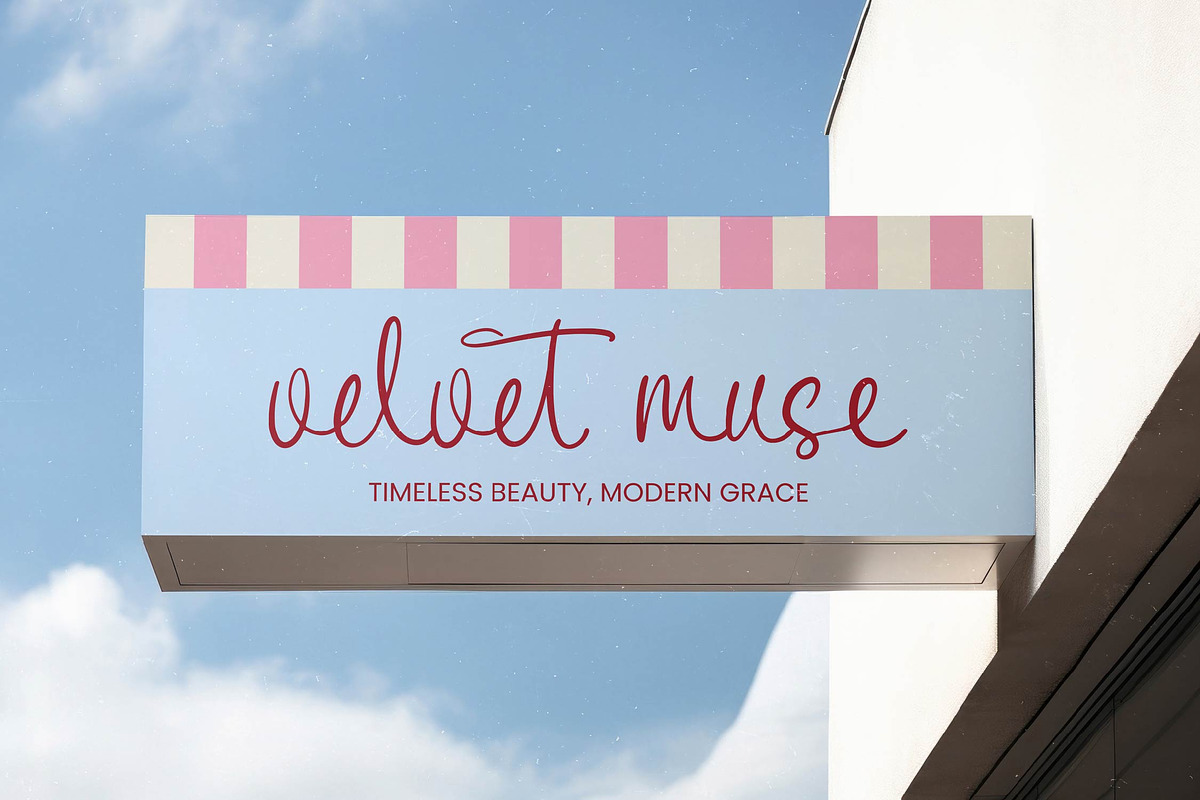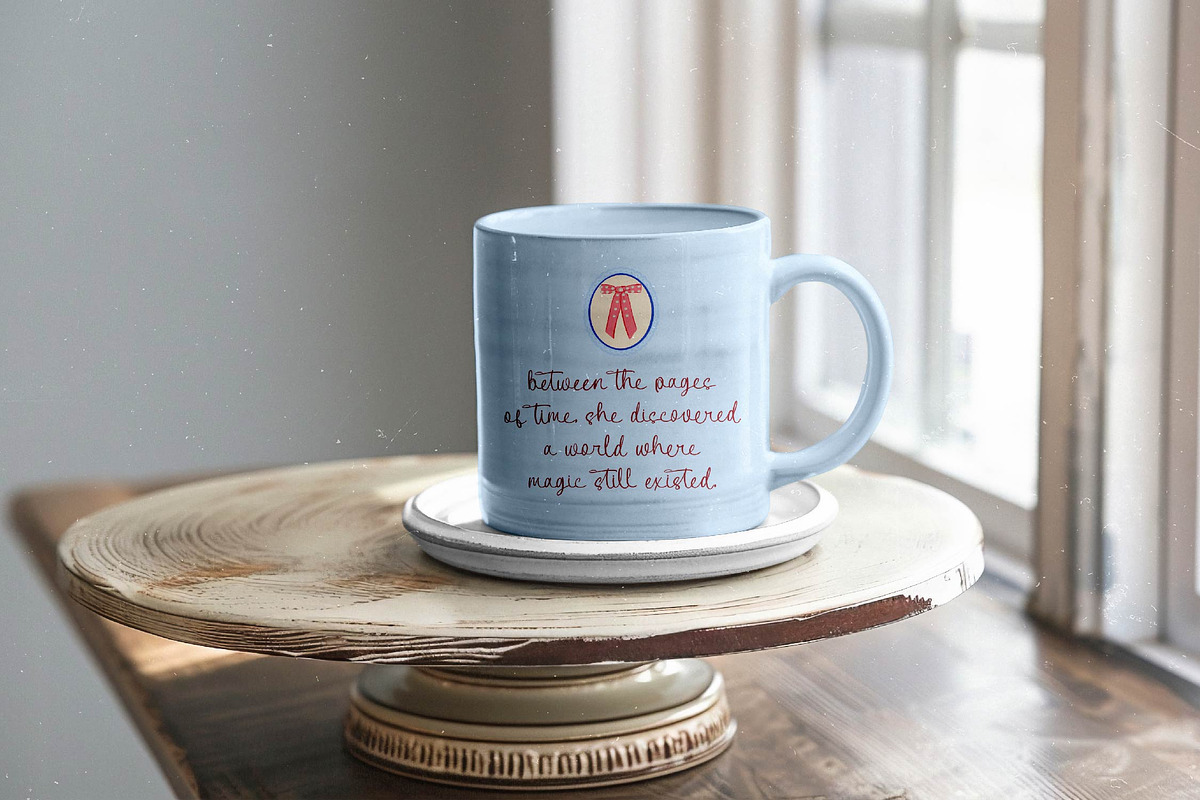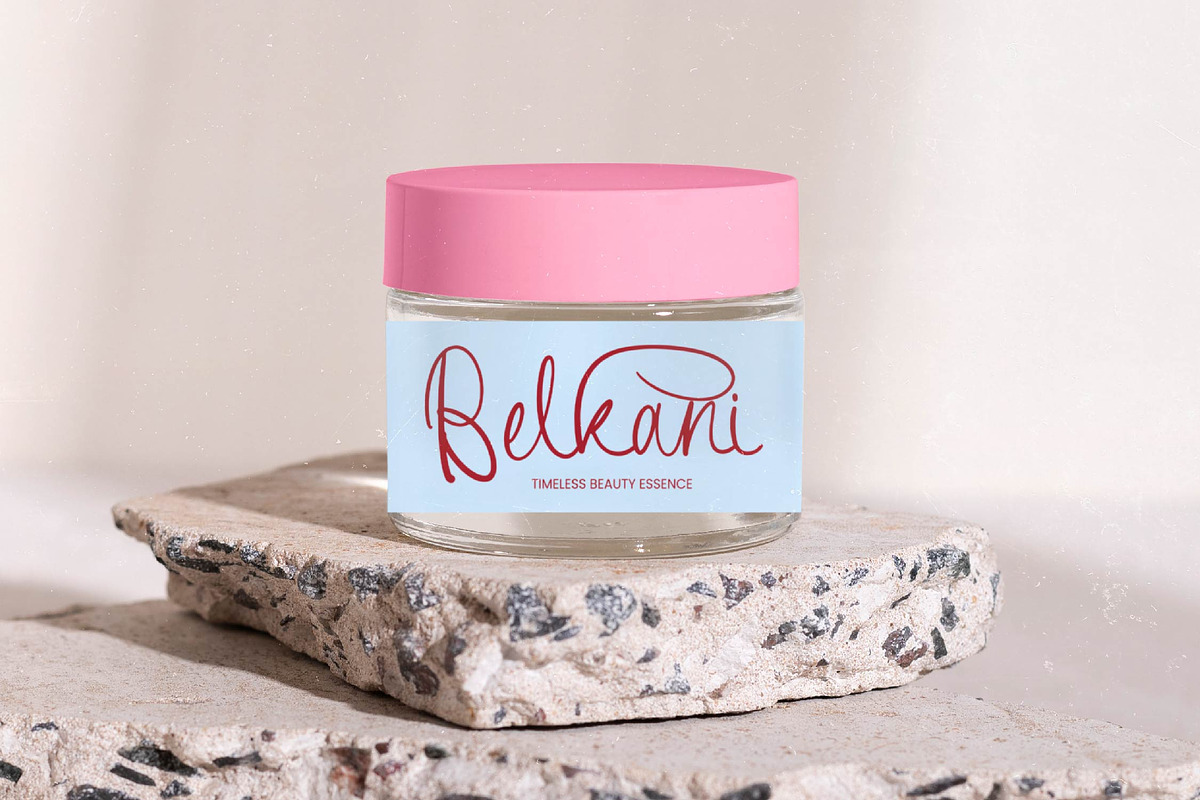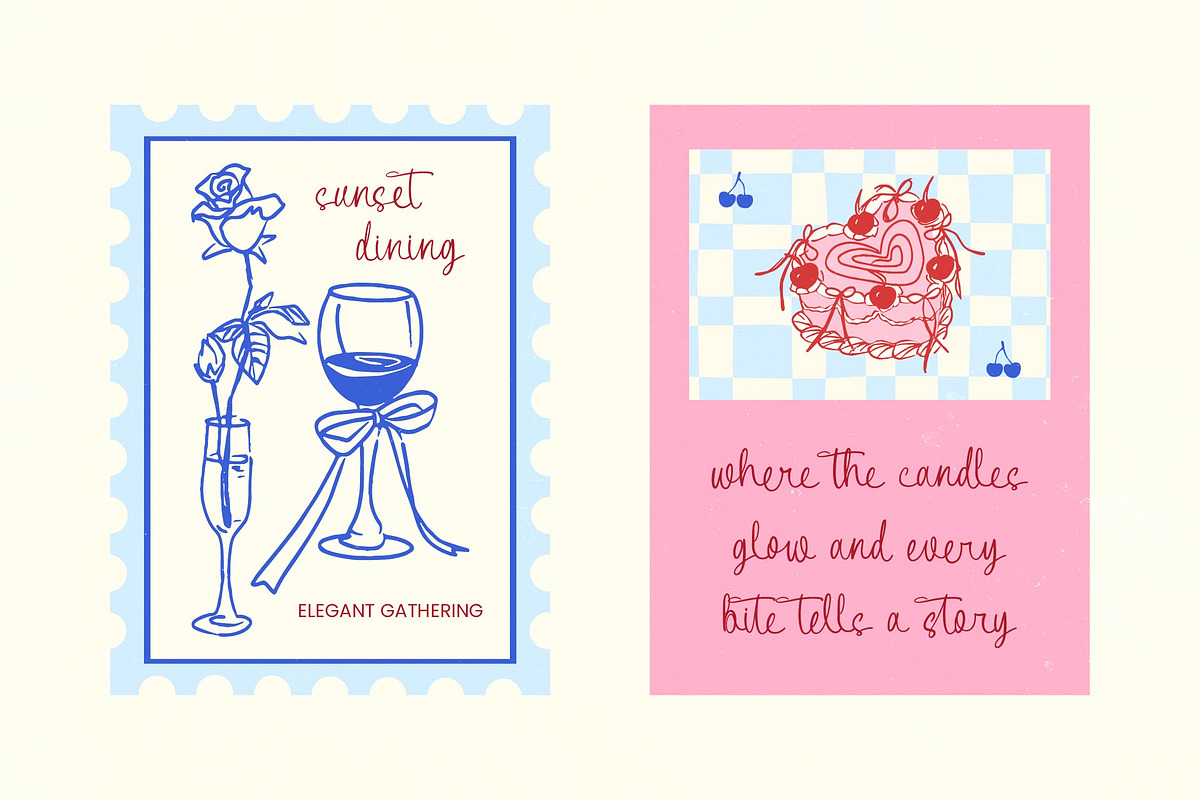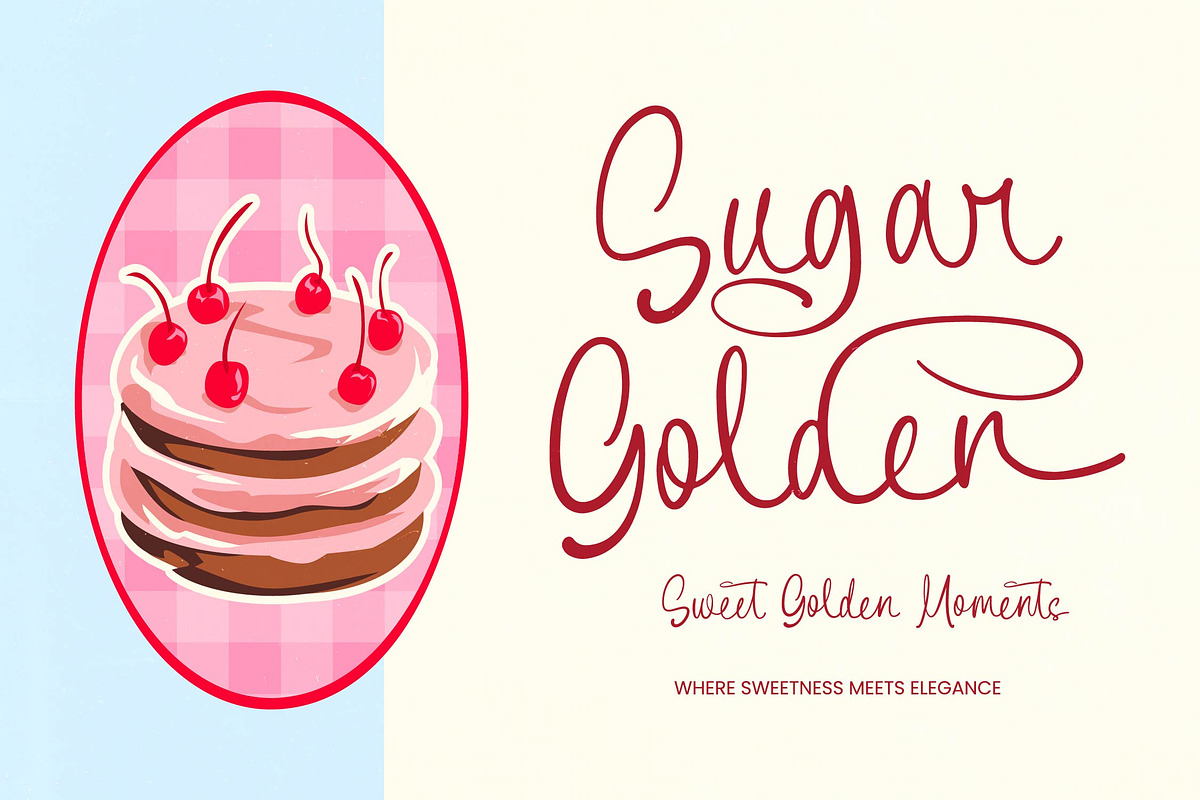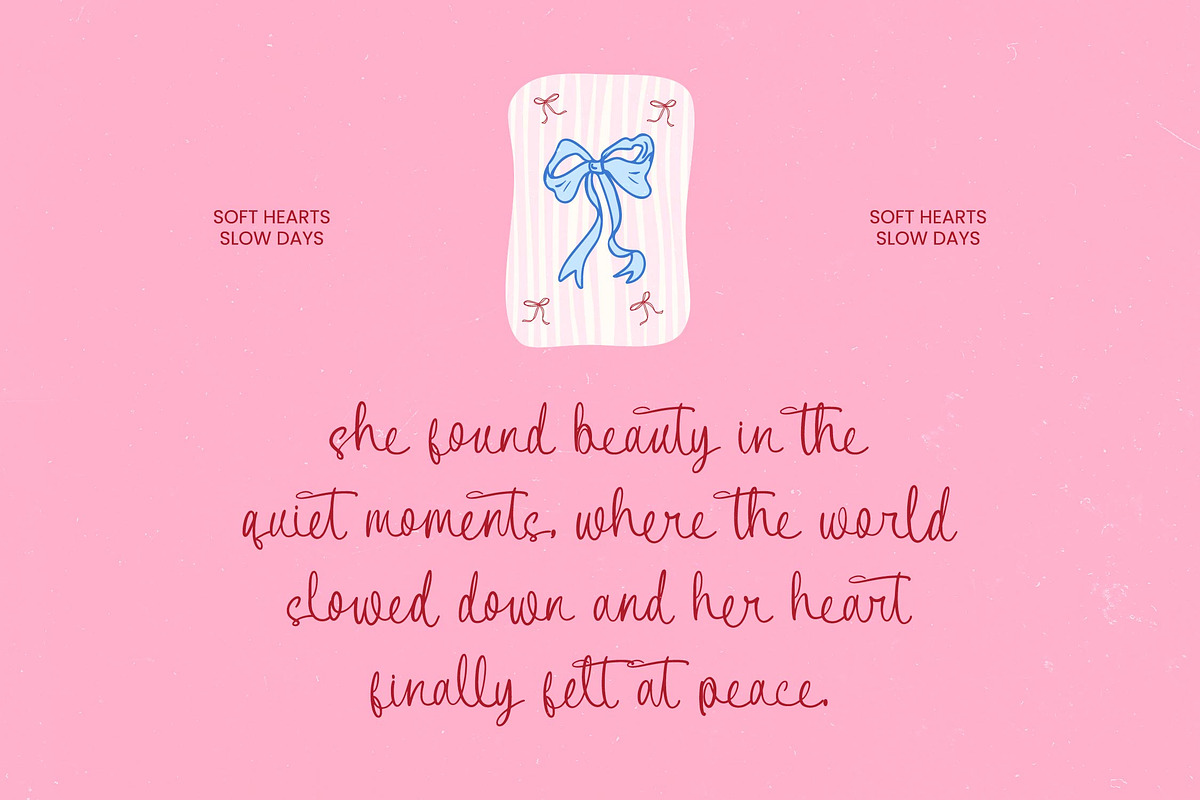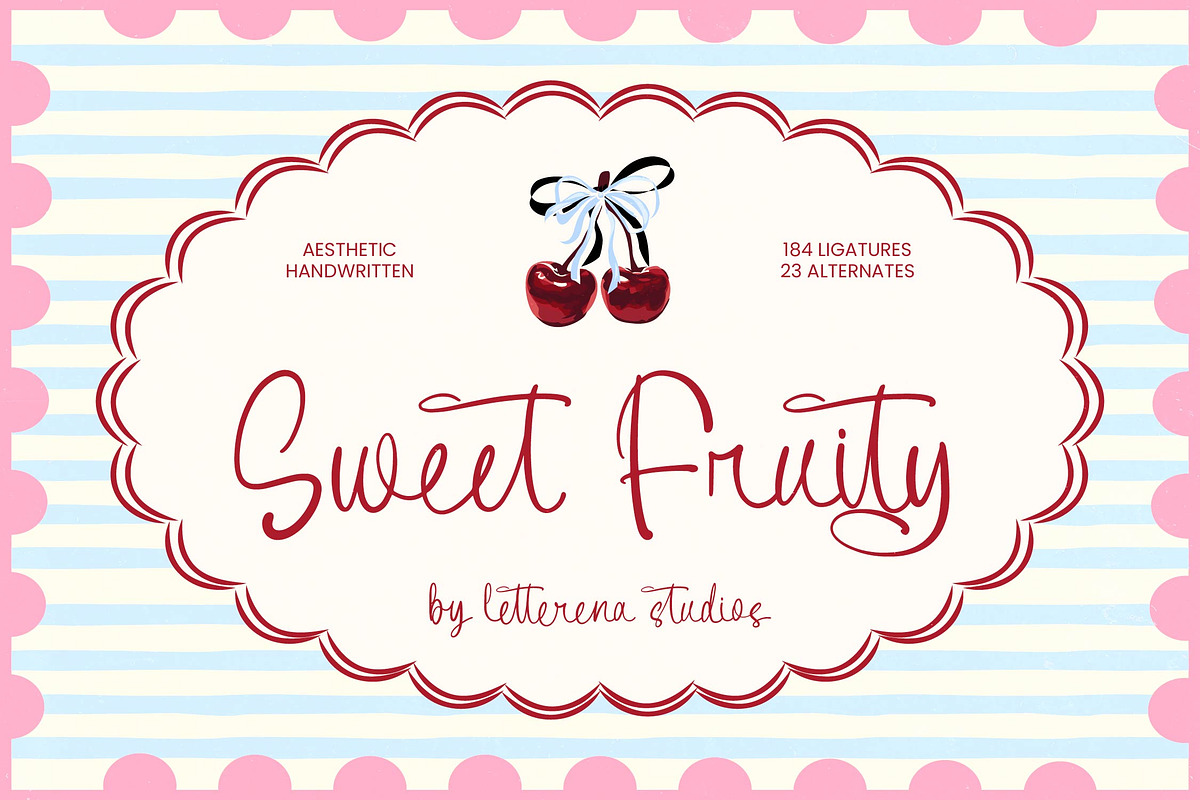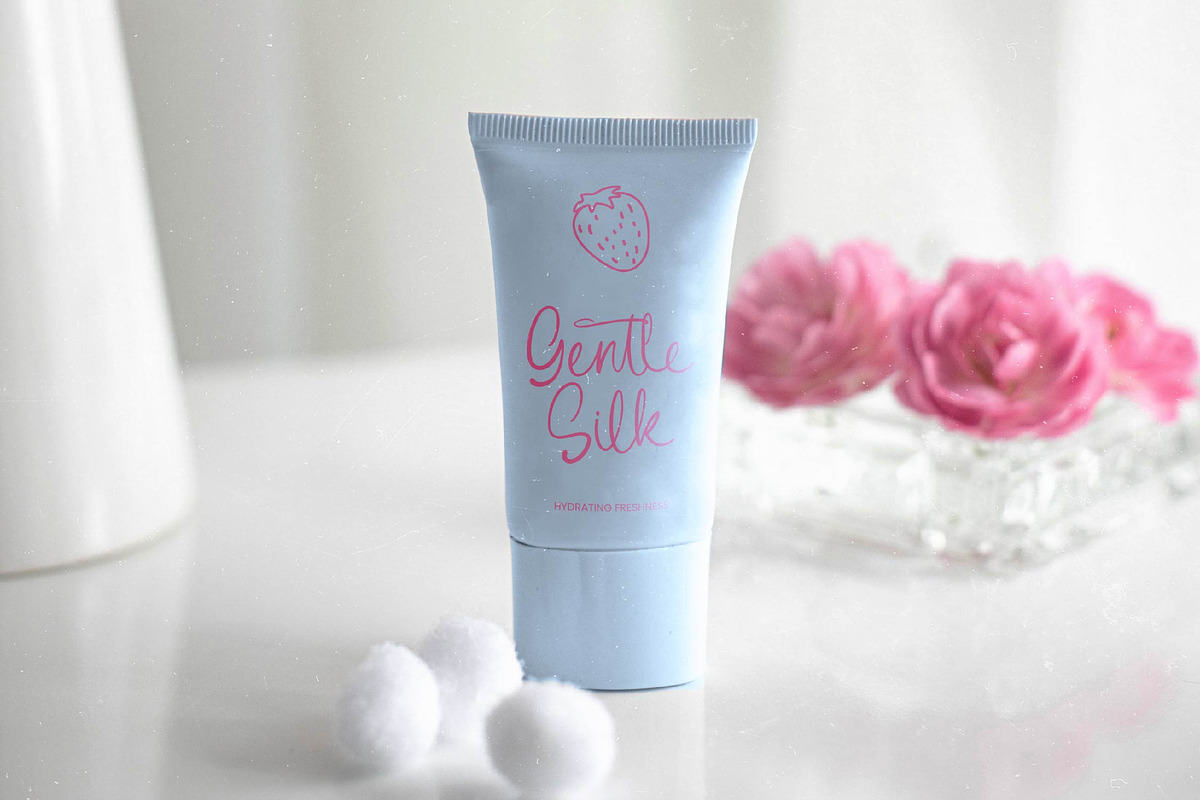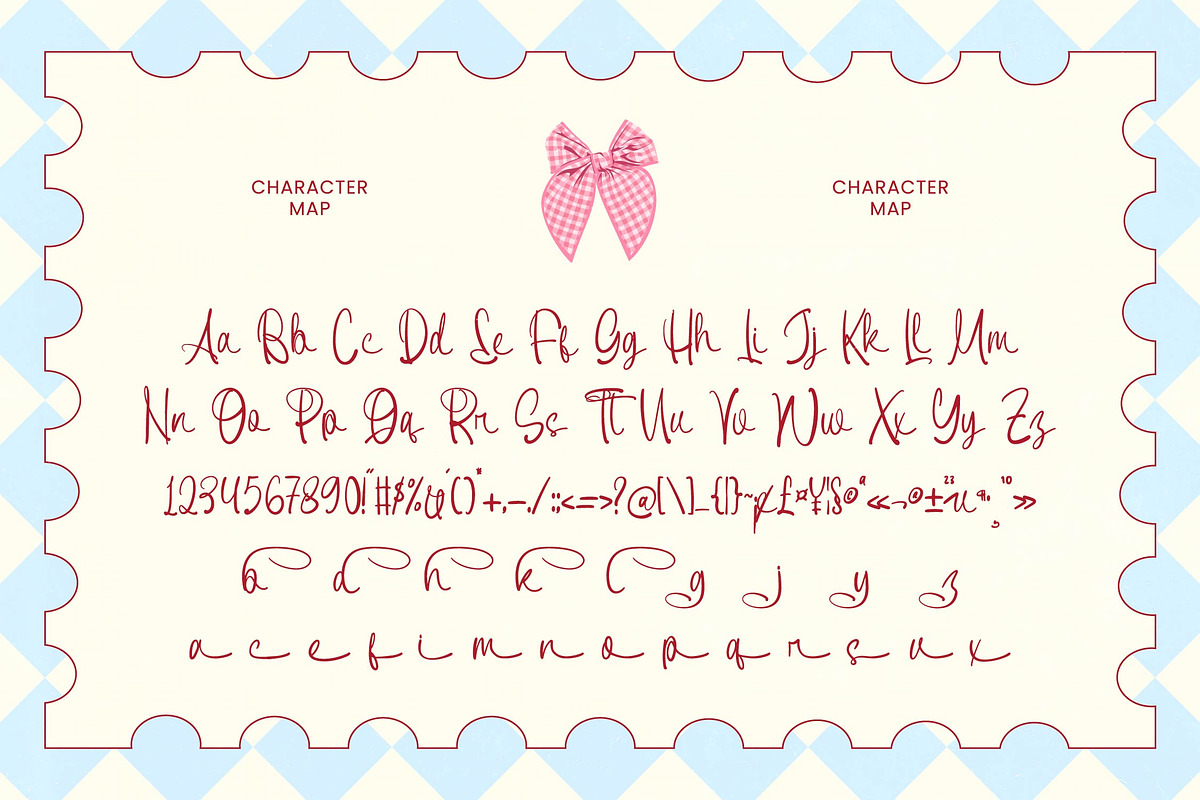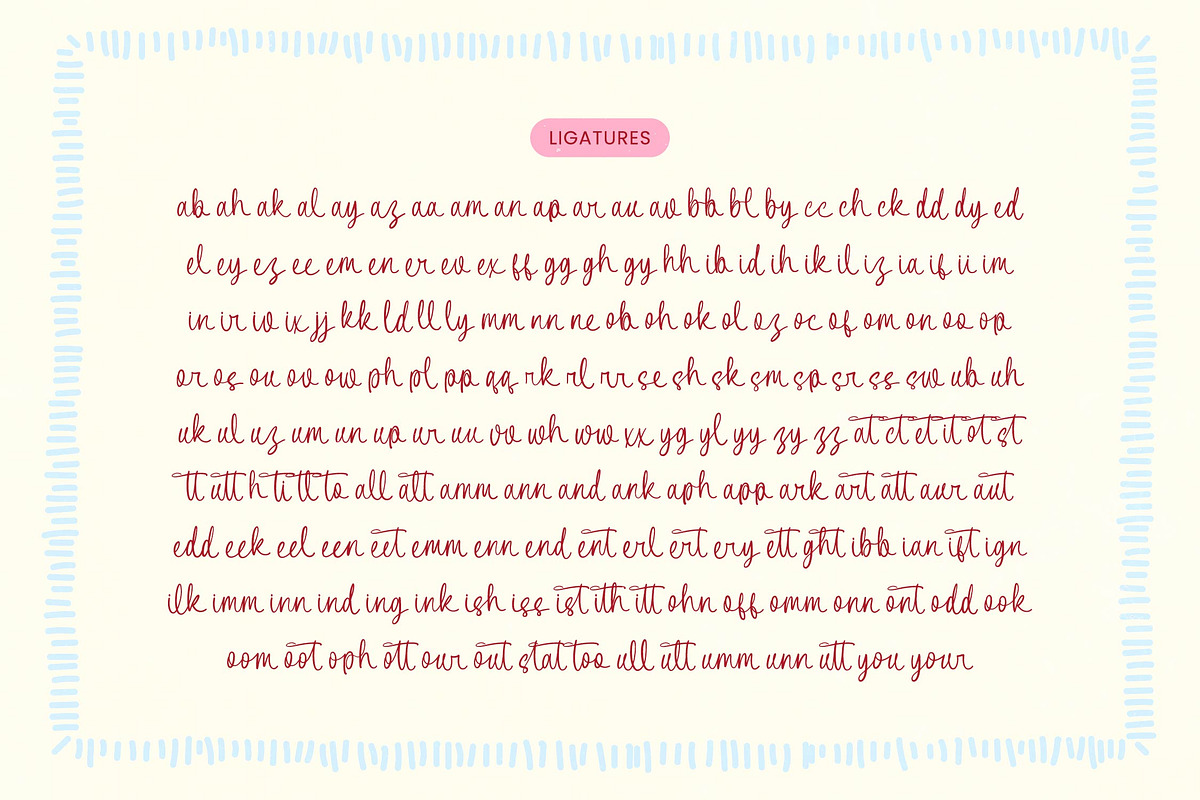
Sweet Fruity Aesthetic Handwritten
Sweet Fruity - Aesthetic Handwritten
Elevate your creative vision with a touch of organic charm and sophisticated fluidity. The Sweet Fruity - Aesthetic Handwritten font is a premium script typeface designed to bring handcrafted elegance to every digital or print project. Its rhythmic flow and natural connections evoke an authentic personality, making it an essential asset for designers seeking to convey warmth and visual storytelling in their professional compositions.
Precision meets playfulness in this highly adaptable design tool, perfect for a wide array of high-end projects. Sweet Fruity - Aesthetic Handwritten is ideal for lifestyle branding, luxury product packaging, and bespoke wedding stationery. Whether you are crafting modern social media content or chic editorial layouts, this typeface provides a polished yet approachable aesthetic that resonates with contemporary audiences.
Expand your brand’s reach without compromising on style or technical performance across various regions. With its extensive multilingual support, Sweet Fruity - Aesthetic Handwritten adapts seamlessly across global markets, making it incredibly versatile for international projects. This ensures that your message remains consistent and visually stunning, regardless of the linguistic requirements of your cross-border marketing campaigns.
Unlock limitless customization through professional typographic features that guarantee a unique look for every client. Sweet Fruity - Aesthetic Handwritten boasts 184 custom ligatures and 23 stylistic alternates, allowing for unparalleled creative flexibility. By integrating these advanced OpenType features, you can achieve a truly bespoke typographic experience that maintains an authentic handwritten feel across all your professional design endeavors.